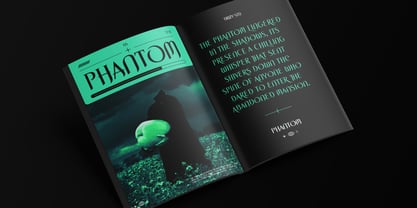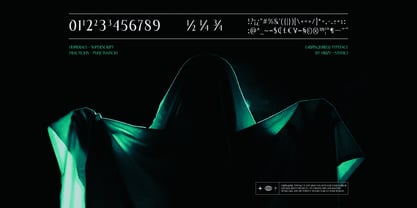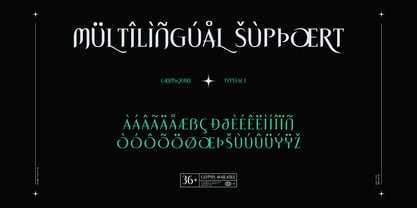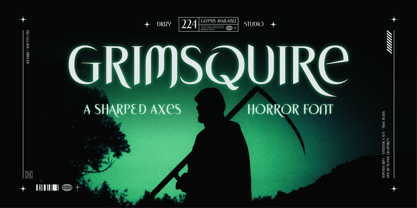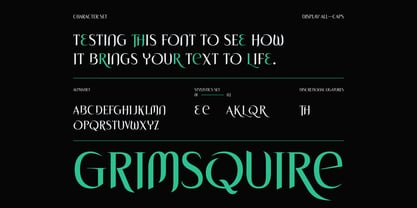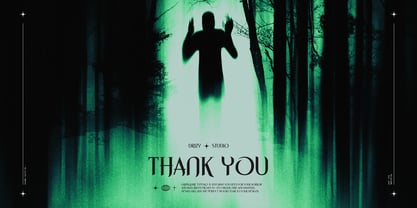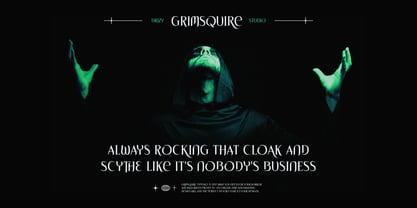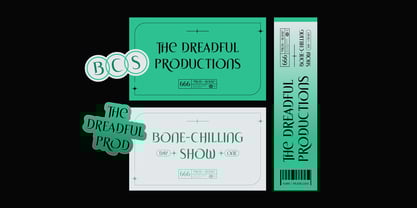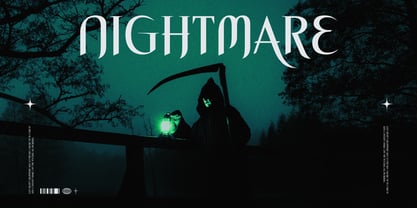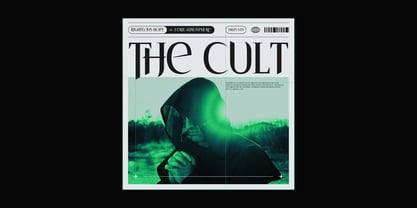
Grimsquire
La familia tipográfica Grimsquire fue diseñada por Panca Ahmadi Hasan y publicada por Drizy Font. Grimsquire contiene 1 estilos. Más información sobre esta familia
Grimsquire – Sharped Axes Horror Font
Grimsquire is a spine-chilling addition to our Halloween collection, where every ax tells a tale of terror. These finely sharpened axes, dripping with dark history and malevolent energy, are not just tools but symbols of fear and power. Each piece in this collection has been meticulously crafted to evoke a sense of dread, perfect for those who dare to embrace the macabre spirit of Halloween. Whether you’re decorating a haunted house or adding to your horror-themed collection, Grimsquire will cut through the ordinary and unleash your darkest creativity.
Grimsquire Script features:
• Character Set (All Caps)
• Punctuation & Numbers
• Multilingual
• Stylistics Set 01 & 02
• Discretional Ligatures